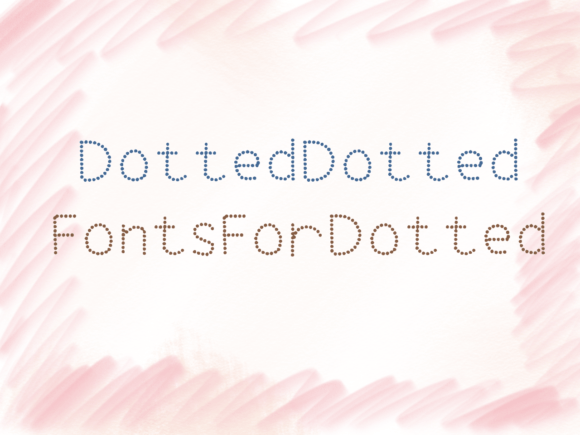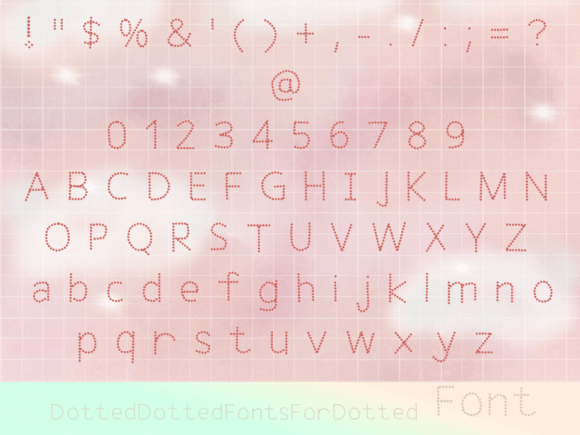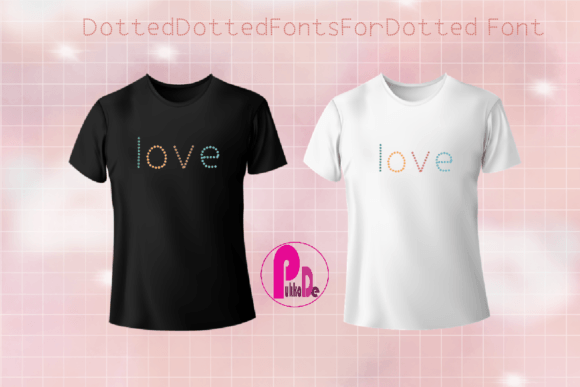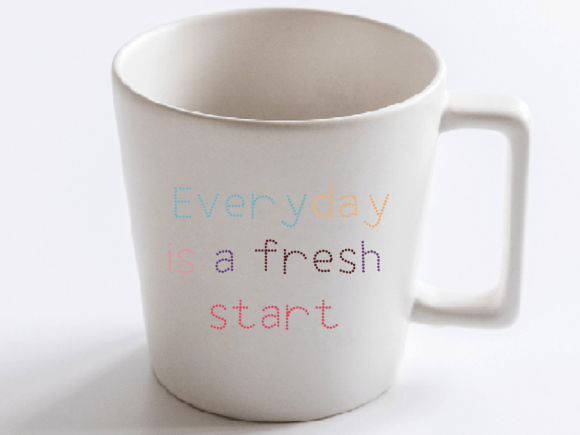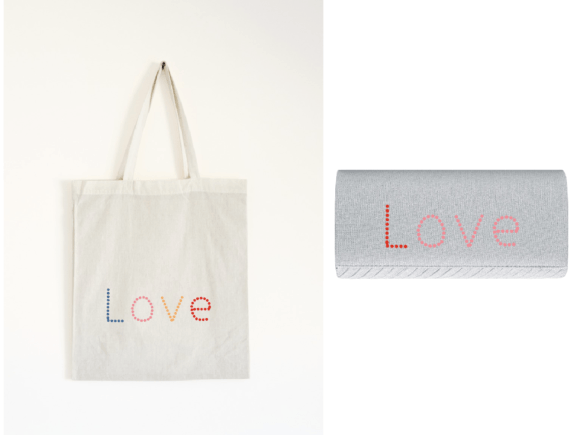
Dotted Dotted Fonts for Dotted Font: Elevate Your Handwritten Creations
Are you a designer, crafter, or educator looking for a fun and useful handwritten font to enhance your creative projects? Look no further than Dotted Dotted Fonts for Dotted Font! This delightful font is perfect for creating engaging workbooks, letter practice sheets, and other materials that require a personal touch.
What is Dotted Dotted Fonts for Dotted Font?
Dotted Dotted Fonts for Dotted Font is a unique and versatile handwritten font designed to add a playful twist to your typography. As its name suggests, this font features dotted lines and curves, making it an excellent choice for creating worksheets, activity sheets, and other educational materials.
Key Features of Dotted Dotted Fonts for Dotted Font
- Handwritten style: Dotted Dotted Fonts for Dotted Font boasts a charming, handwritten aesthetic that’s perfect for adding a personal touch to your designs.
- Dotted lines and curves: The font’s distinctive dotted pattern creates a visually appealing and engaging effect, making it ideal for educational materials and children’s activities.
- Versatile: Dotted Dotted Fonts for Dotted Font can be used for a wide range of projects, from workbooks and letter practice sheets to crafts and DIY tutorials.
- Easy to read: Despite its playful design, this font remains clear and easy to read, ensuring that your message gets across effectively.
Uses for Dotted Dotted Fonts for Dotted Font
So, how can you use Dotted Dotted Fonts for Dotted Font in your creative projects? Here are some inspiring ideas to get you started:
- Educational materials: Create engaging worksheets, activity sheets, and letter practice sheets for students of all ages.
- Workbooks and journals: Design beautiful and functional workbooks, journals, and planners that inspire creativity and productivity.
- Crafts and DIY tutorials: Use Dotted Dotted Fonts for Dotted Font to add a personal touch to your craft patterns, tutorials, and instructions.
- Party decorations and invitations: Add a playful touch to your party decorations, invitations, and other celebration materials.
Tips for Using Dotted Dotted Fonts for Dotted Font
To make the most of Dotted Dotted Fonts for Dotted Font, keep the following tips in mind:
- Experiment with colors: Try pairing the font with different colors and textures to create visually appealing combinations.
- Mix and match: Combine Dotted Dotted Fonts for Dotted Font with other fonts and typography styles to add depth and interest to your designs.
- Keep it simple: Don’t be afraid to keep your design simple and clean, allowing the font’s playful pattern to take center stage.
Dotted Dotted Fonts for Dotted Font is a versatile and engaging handwritten font that’s perfect for designers, crafters, and educators. With its unique dotted pattern and easy-to-read style, this font is sure to elevate your creative projects and add a touch of personality to your typography. So why wait? Download Dotted Dotted Fonts for Dotted Font today and start creating!
Recommended for: Designers, crafters, educators, and anyone looking for a fun and useful handwritten font.
Key benefits: Unique dotted pattern, easy to read, versatile, and perfect for educational materials and creative projects.